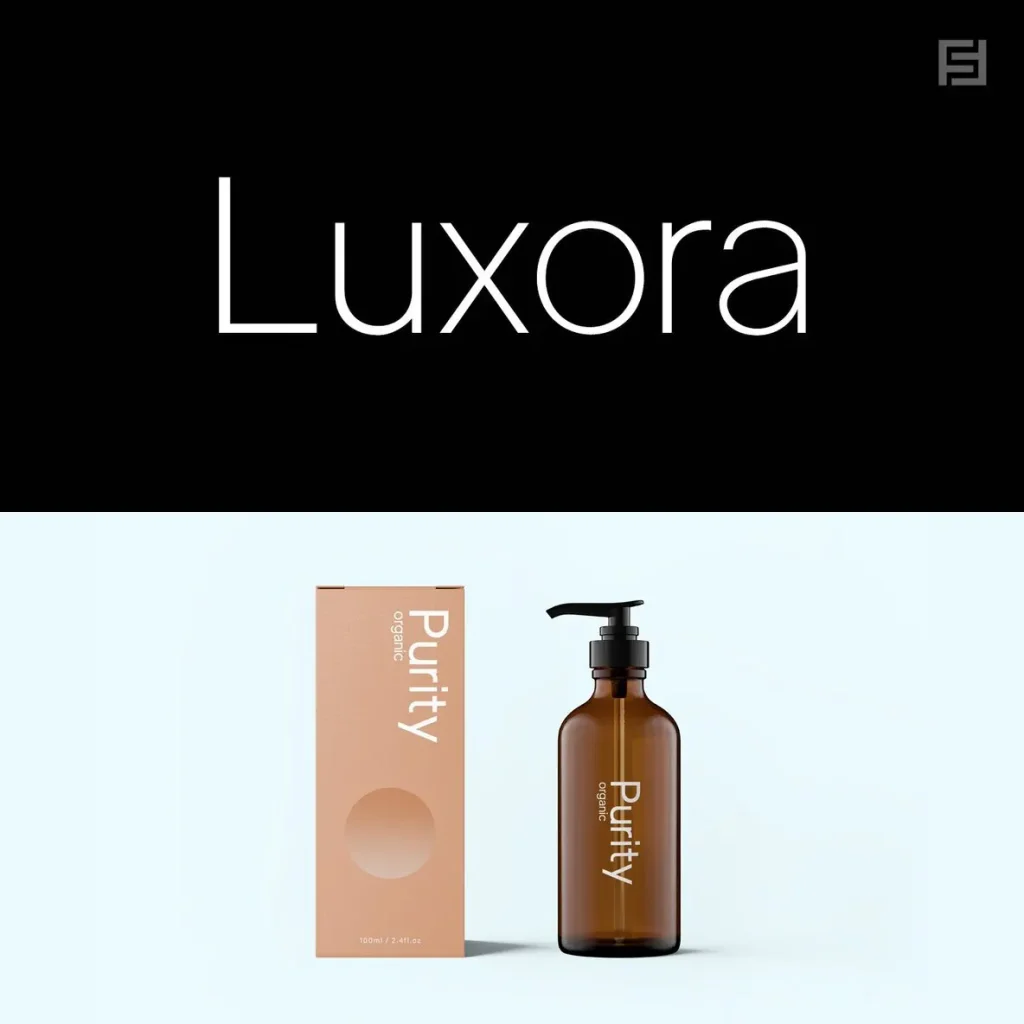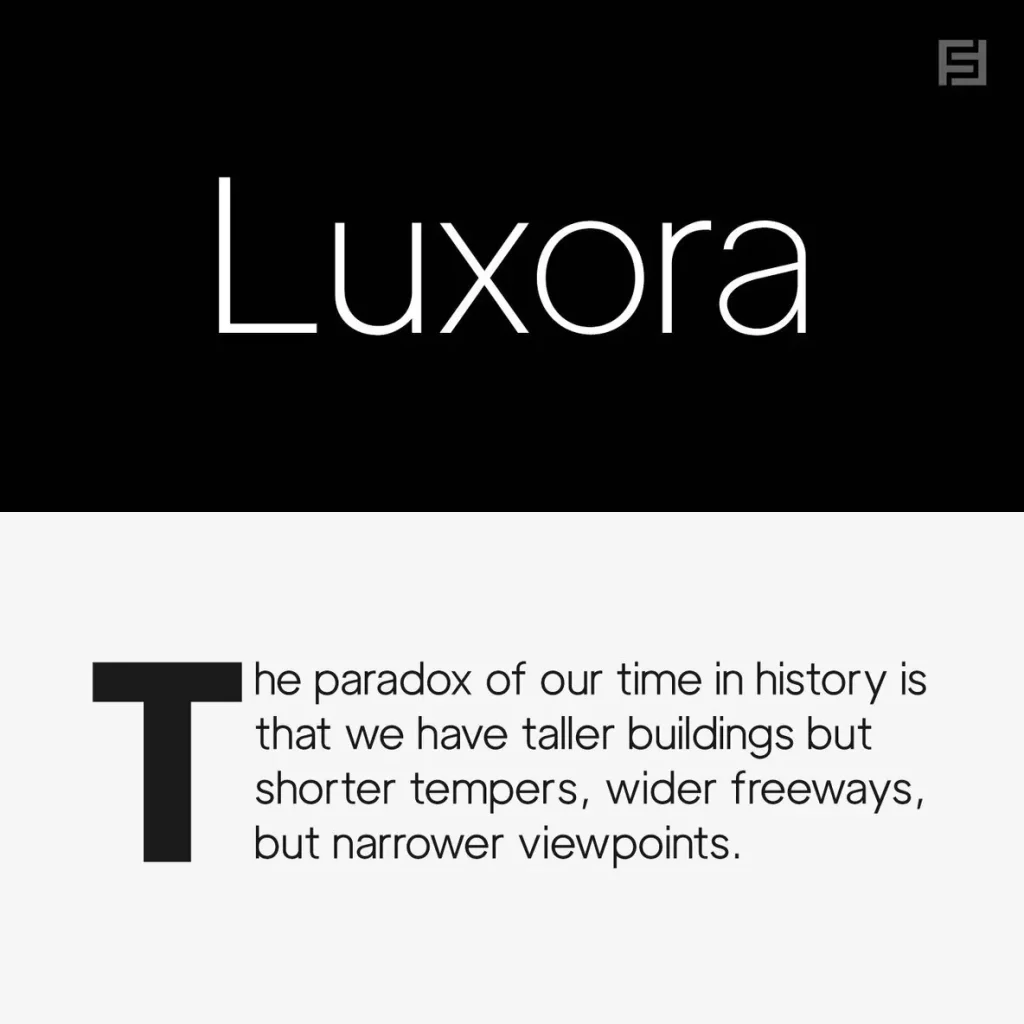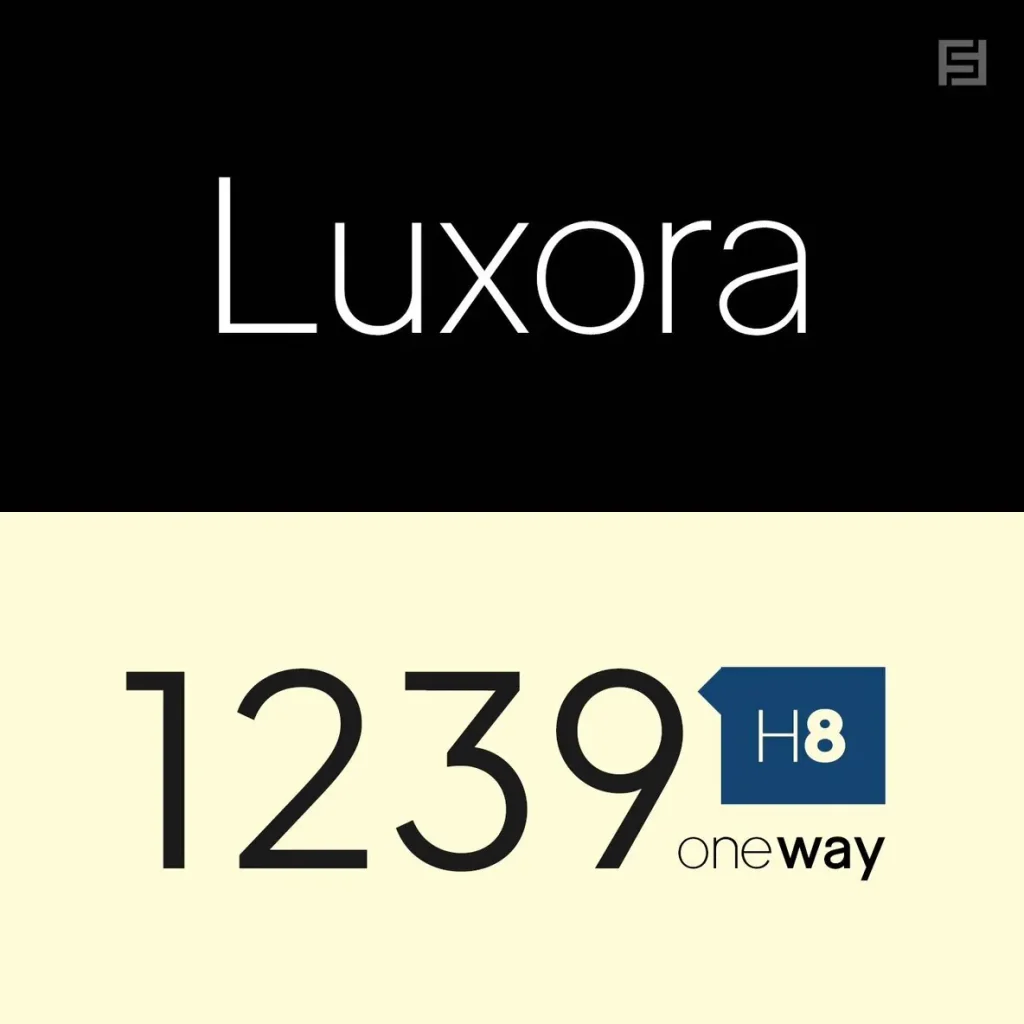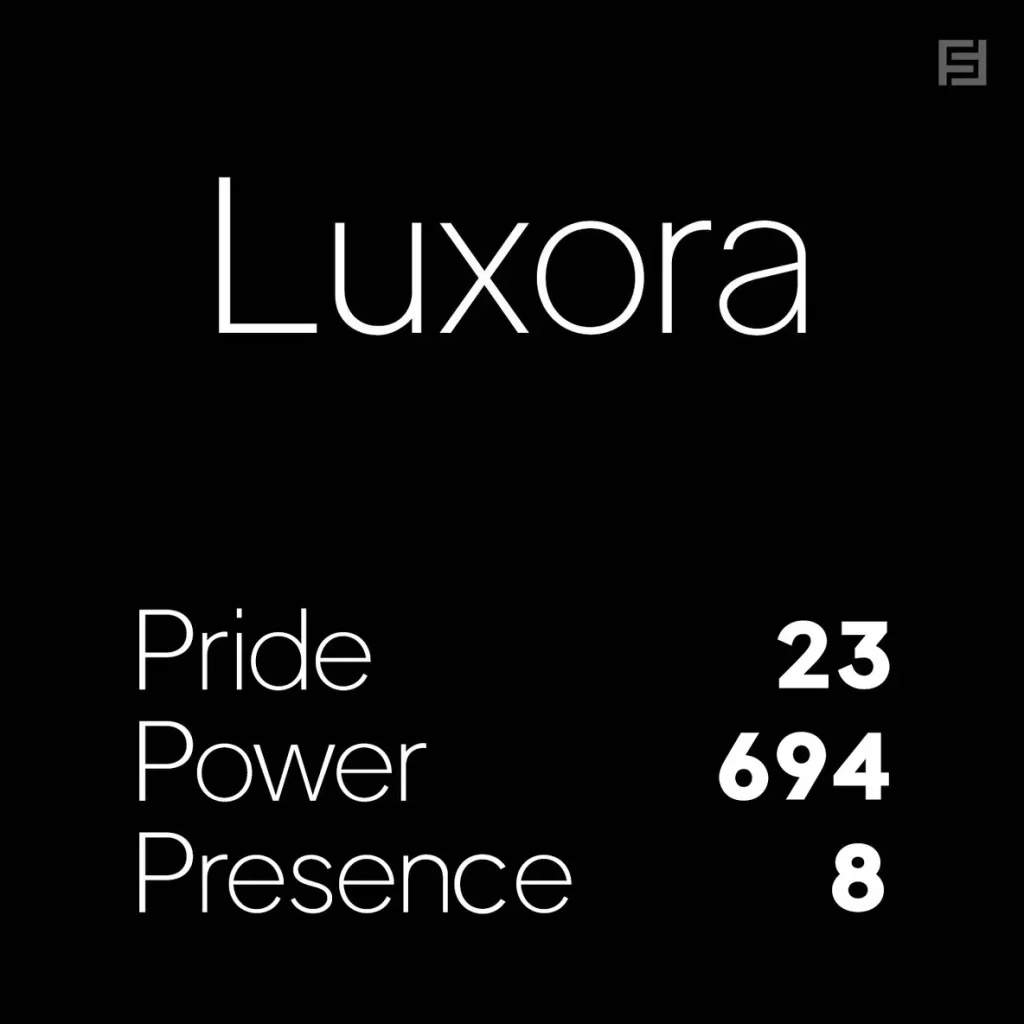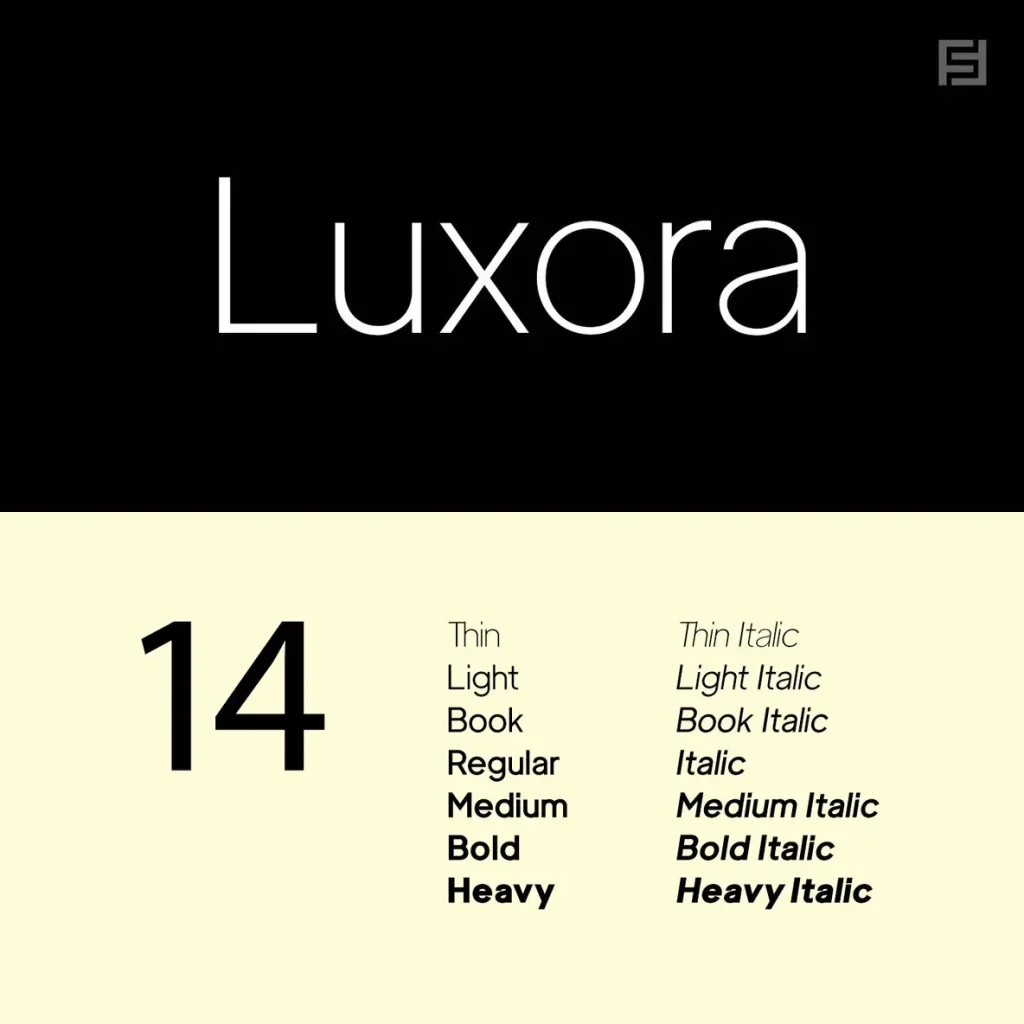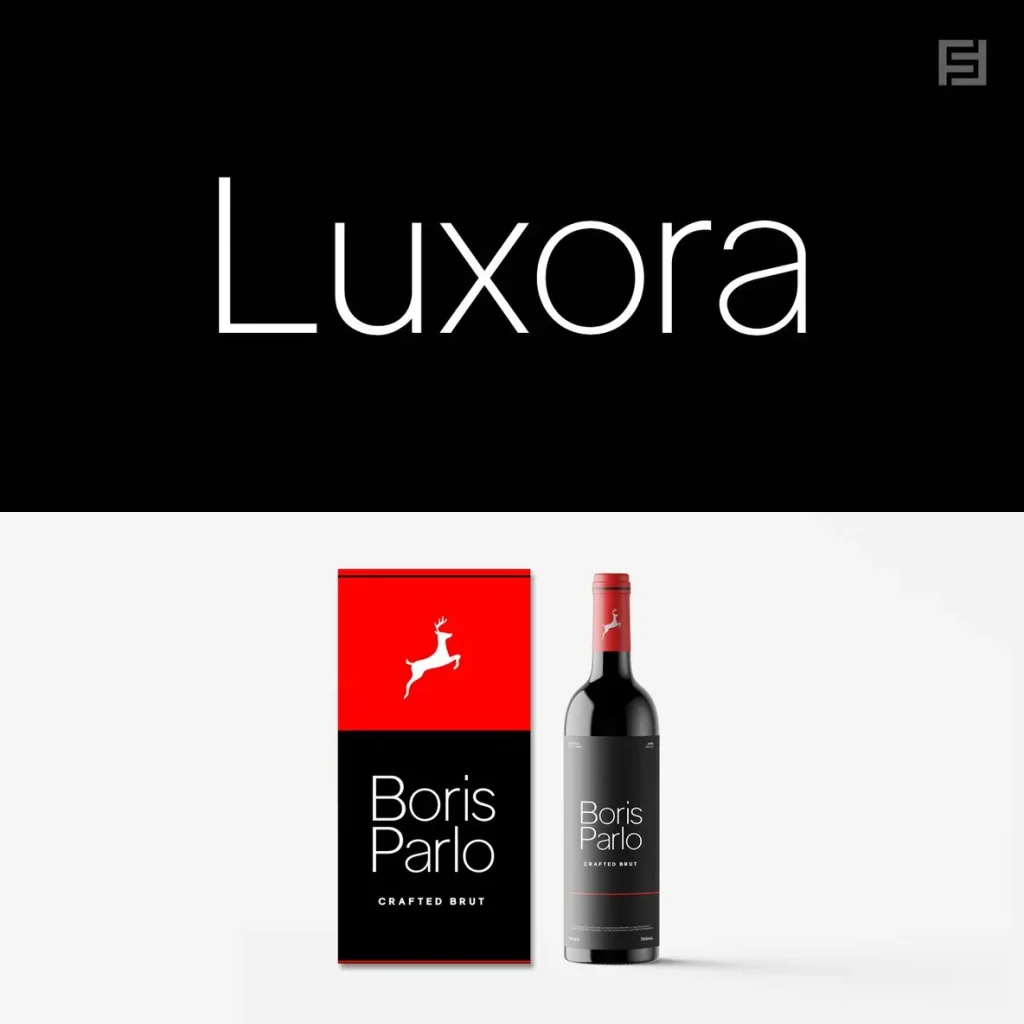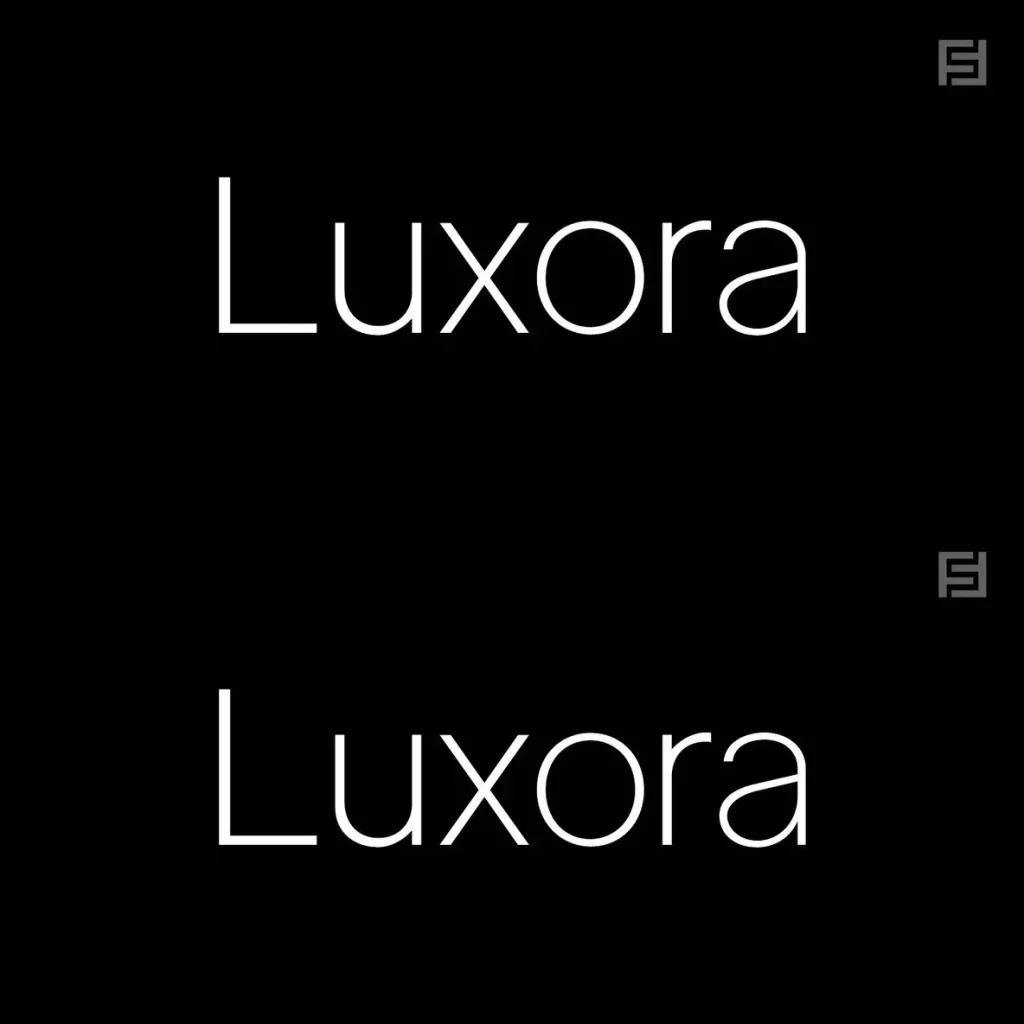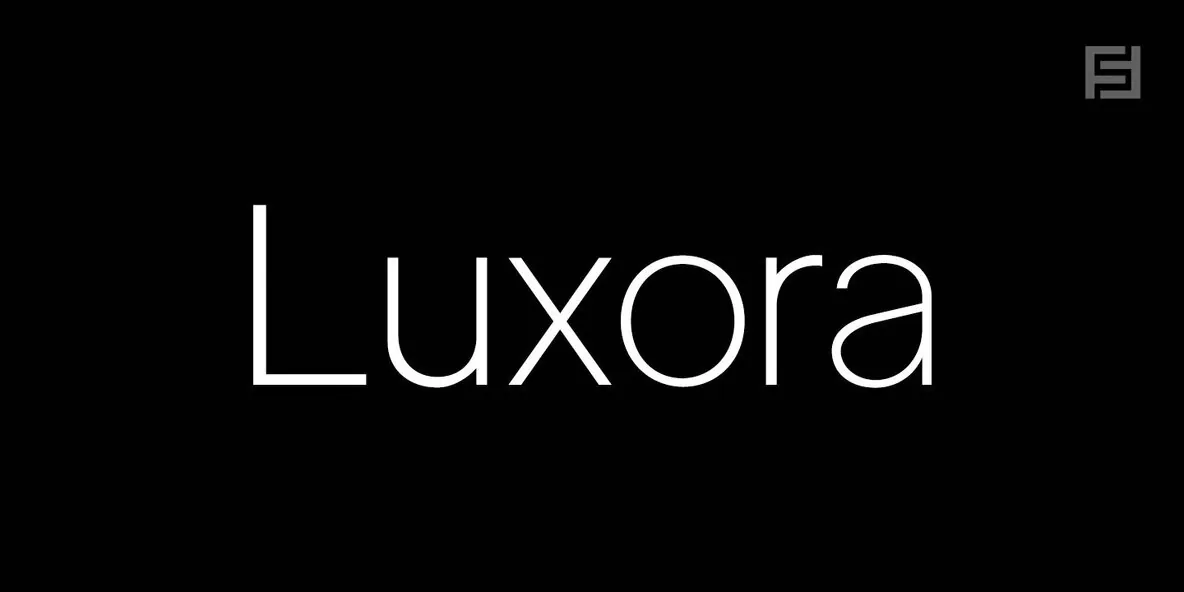
LUXORA GROTESK is a minimal sans-serif typeface family designed with clean geometry, modern simplicity, and elegant proportions. Its refined structure delivers a professional and timeless appearance while maintaining excellent readability across different applications. The font is crafted for branding, editorial layouts, digital interfaces, corporate identities, and contemporary design systems.